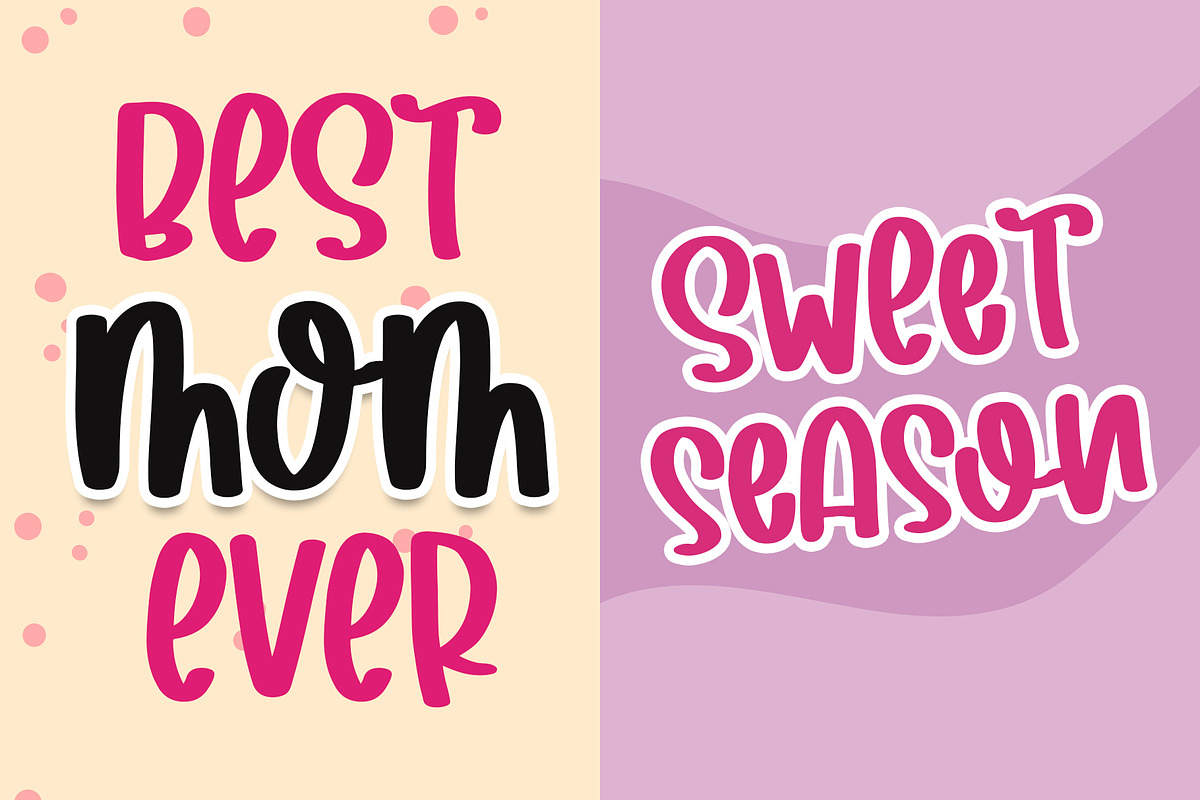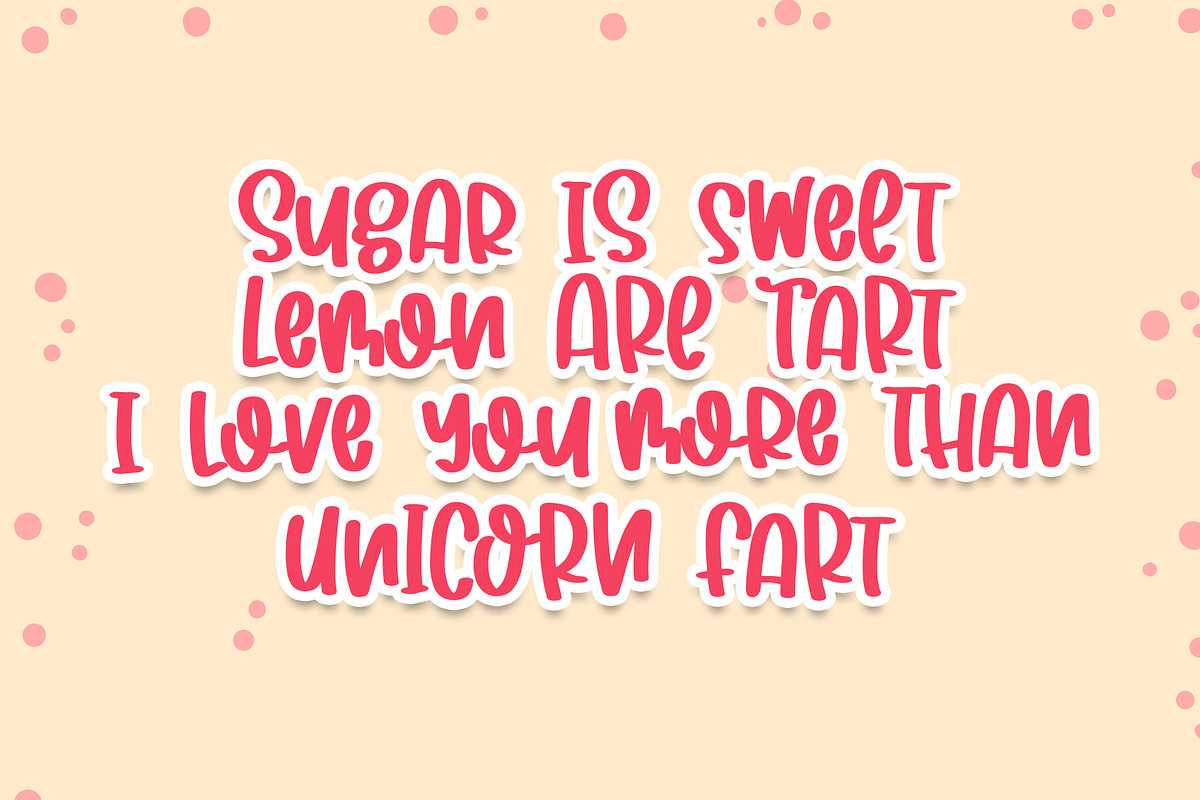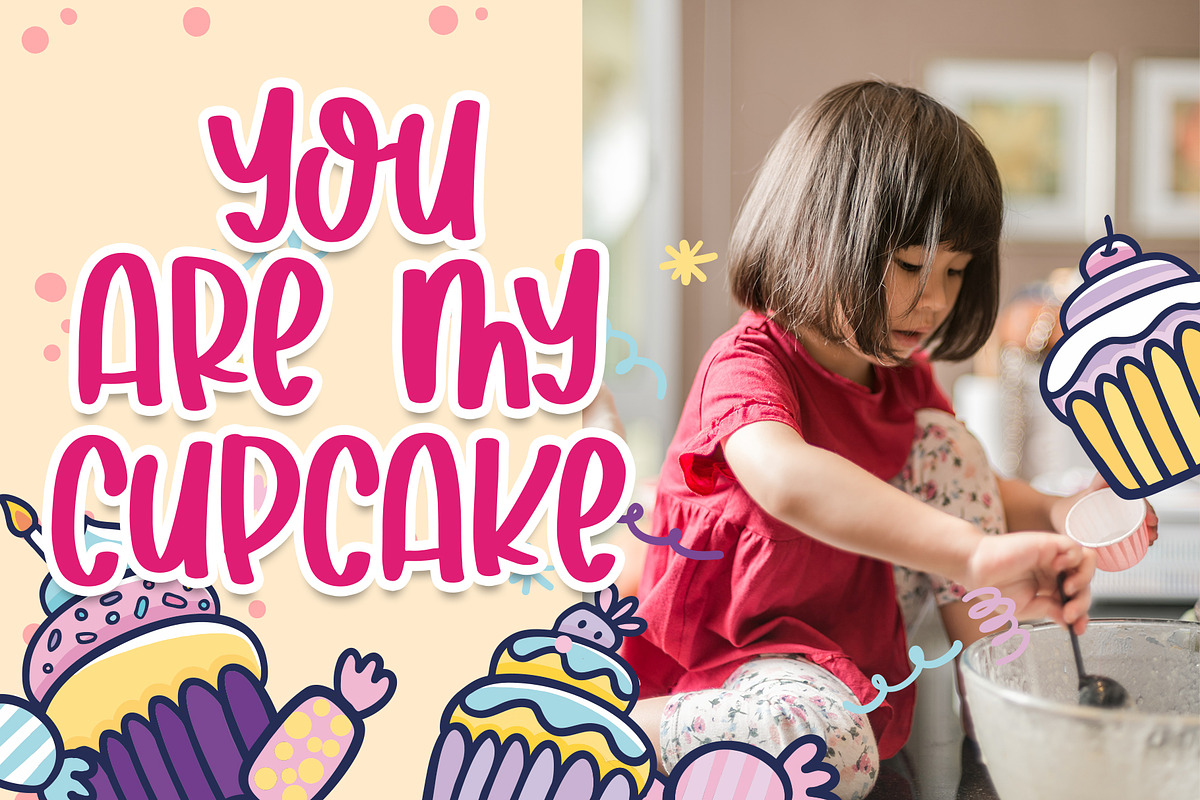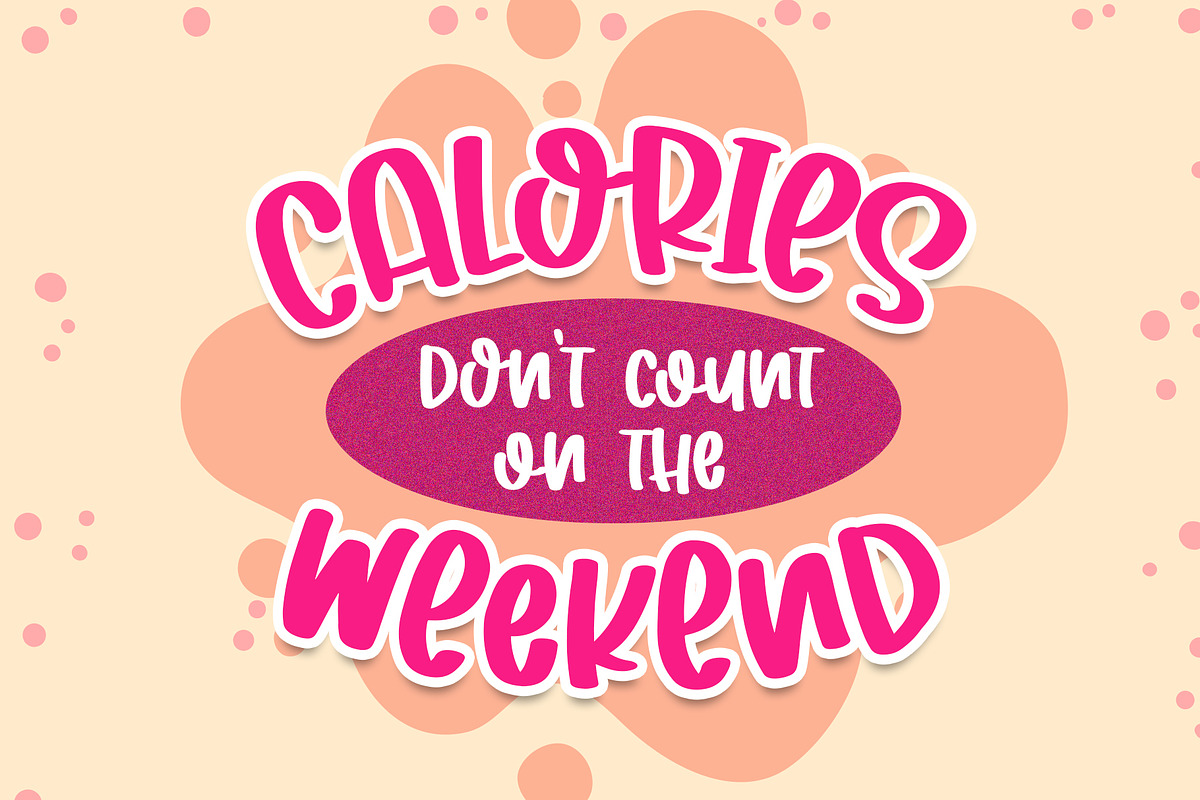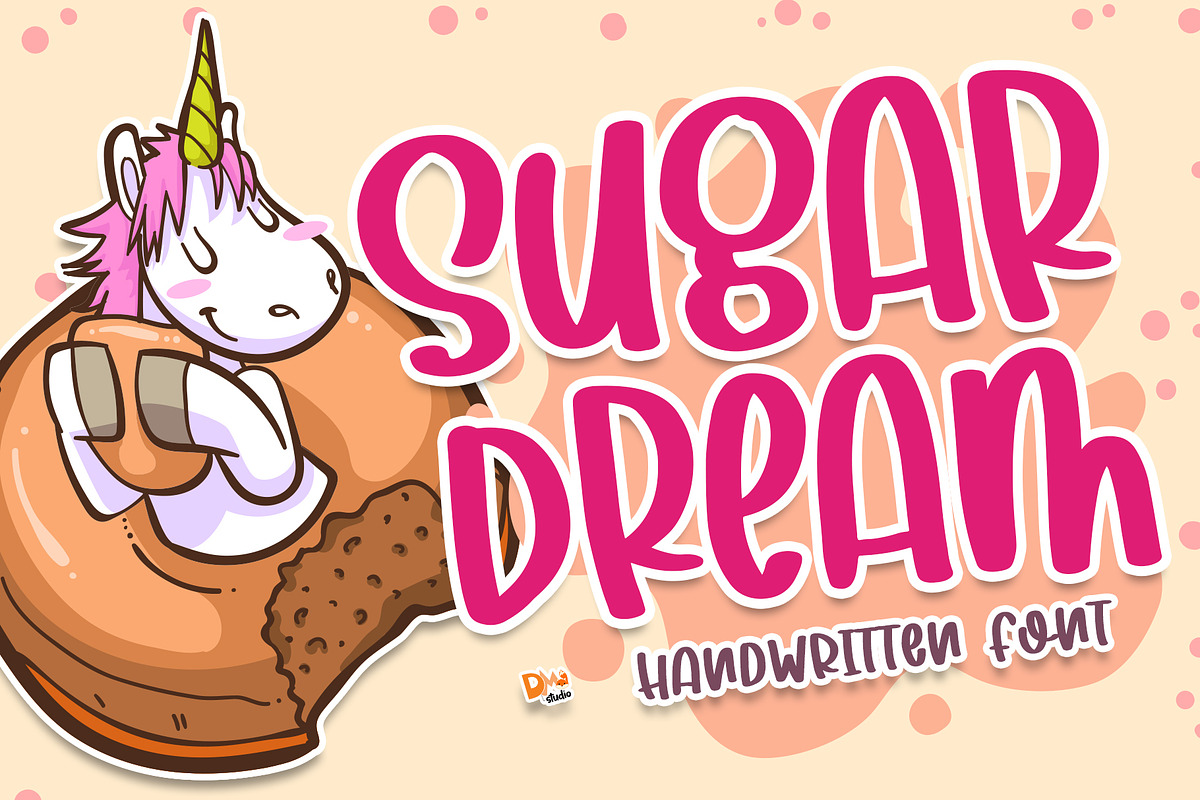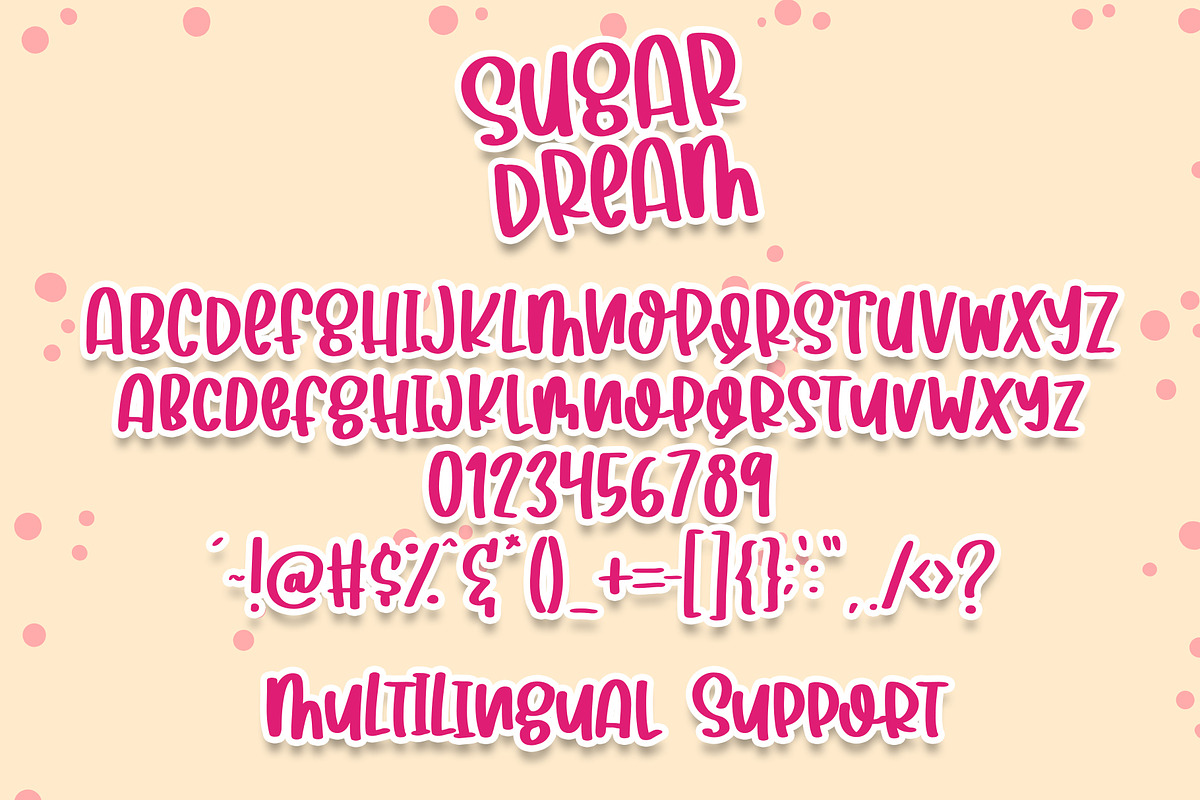
Sugar Dream - Handwritten Font
Sugar Dream is a cute and fun handwritten font. Great for your crafting and so playful !
Sugar Dream - Handwritten Font by Dm Studio fits naturally into Branding, posters, packaging, typography.